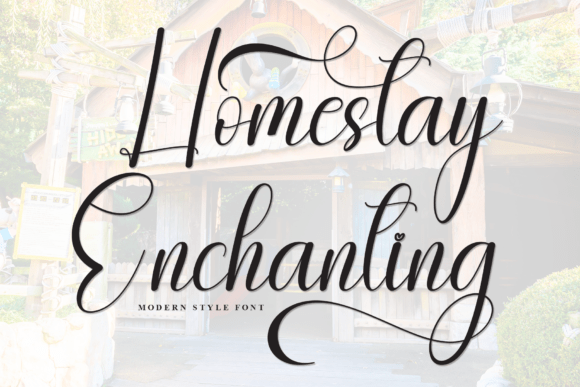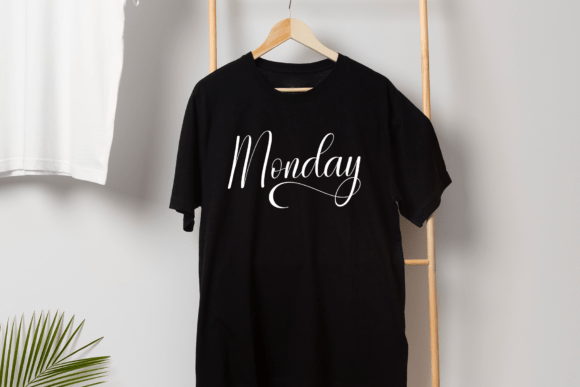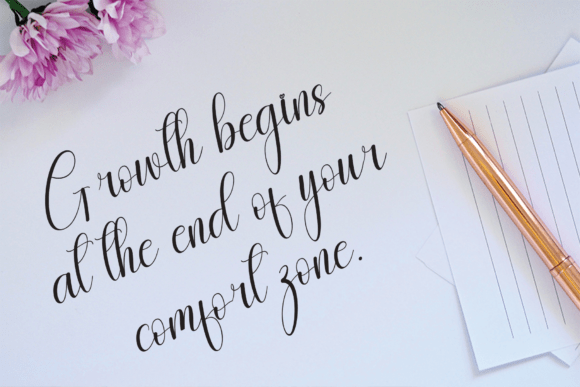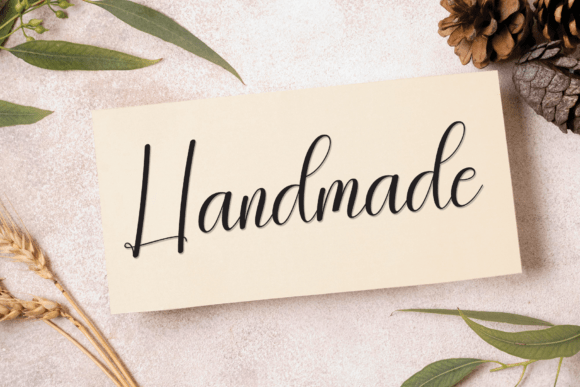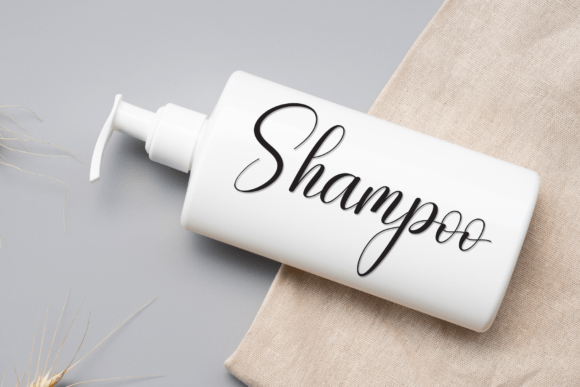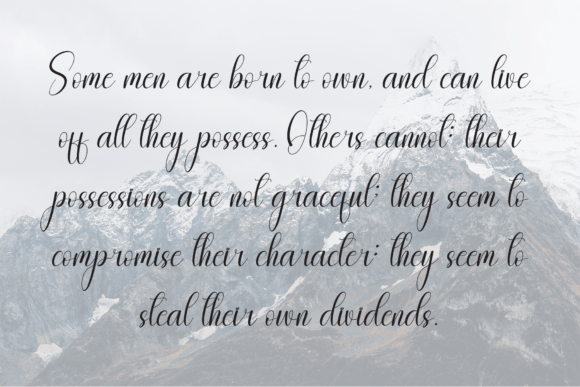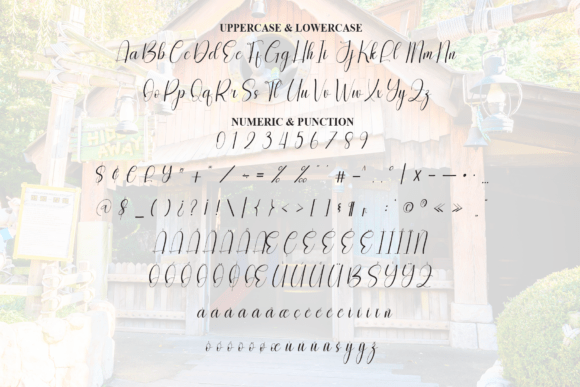
Unleash the Magic of Handwritten Charm
Do you ever find yourself rummaging through your font collection, searching for that perfect, whimsical touch to elevate your designs? We’ve all been there – scrolling through page after page of fonts, only to stumble upon one that sparks a creative burst. For me, that moment came when I discovered the Homestay Enchanting Font. Its light-hearted and delightful charm instantly captured my attention, and I knew I had to learn more.
Homestay Enchanting Font is a personable, handwritten font that’s sure to add a sprinkle of magic to your creative endeavors. Whether you’re designing a wedding invitation, crafting striking cards, or working on any project that calls for a touch of whimsy, this font is an invaluable asset. Its unique design makes it an irresistible choice for designers looking to breathe new life into their projects.
- Unique Characteristics: Whimsical, elegant, and charming design, perfect for creating a warm and inviting atmosphere in home decor, hospitality, and travel-related projects.
Designer Review: Homestay Enchanting Font
Overall, I have mixed feelings about the Homestay Enchanting Font. It has some great qualities that could make it a perfect fit for certain projects, but it also has some limitations that might hold it back.
- Unique charm: The Homestay Enchanting Font has a distinct, whimsical feel that could add a touch of personality to your designs.
- Good for handwritten text: The font’s irregularity makes it well-suited for handwritten text, such as quotes or captions.
- Easy to read: Despite its playful nature, the font is still relatively easy to read, especially in larger sizes.
- Not ideal for body text: The font’s irregularity and lack of consistency make it challenging to read in large blocks of text.
- May not work well with small font sizes: The font’s decorative elements can become lost or distorted when reduced to small sizes.
- Limited versatility: The font’s unique charm might not translate well to more formal or professional designs.
In conclusion, the Homestay Enchanting Font is a great choice for projects that require a playful, handwritten feel. However, it may not be the best fit for more formal or text-heavy designs. With some careful consideration and planning, this font could add a delightful touch to your next project.
Getting the Most Out of Homestay Enchanting Font
For the best results, use Homestay Enchanting Font in conjunction with high-quality images and a clear, concise message.
Experiment with different font sizes, colors, and arrangements to create a visually appealing design.
Homestay Enchanting Font is ideal for:
- Travel and tourism websites
- Accommodation and hospitality businesses
- Travel guides and broch
Alternatives to “Homestay Enchanting Font” for Designers
The Great Vibes Font is a beautiful, elegant script font perfect for creating a sense of sophistication and refinement. It’s ideal for use in wedding invitations, luxury branding, and high-end packaging. Great Vibes Font has a more refined and delicate feel compared to Homestay Enchanting Font, making it suitable for more formal and elegant designs.
Alex Brush Font is a handwritten font with a personal and artistic touch. It’s perfect for creating a sense of warmth and approachability, making it ideal for use in branding, advertising, and editorial designs. Alex Brush Font has a more natural and organic feel compared to Homestay Enchanting Font, making it suitable for designs that require a more personal touch.
Carolyna Pro Font is a modern and elegant script font perfect for creating a sense of luxury and sophistication. It’s ideal for use in high-end branding, packaging, and advertising. Carolyna Pro Font has a more refined and polished feel compared to Homestay Enchanting Font, making it suitable for designs that require a high level of professionalism.
Are there any specific font size or line height recommendations for using the Homestay Enchanting Font?
For optimal readability, we recommend using font sizes between 12pt and 24pt, with a line height of at least 1.2x to 1.5x the font size. This will ensure that the text remains clear and legible, especially at smaller font sizes.